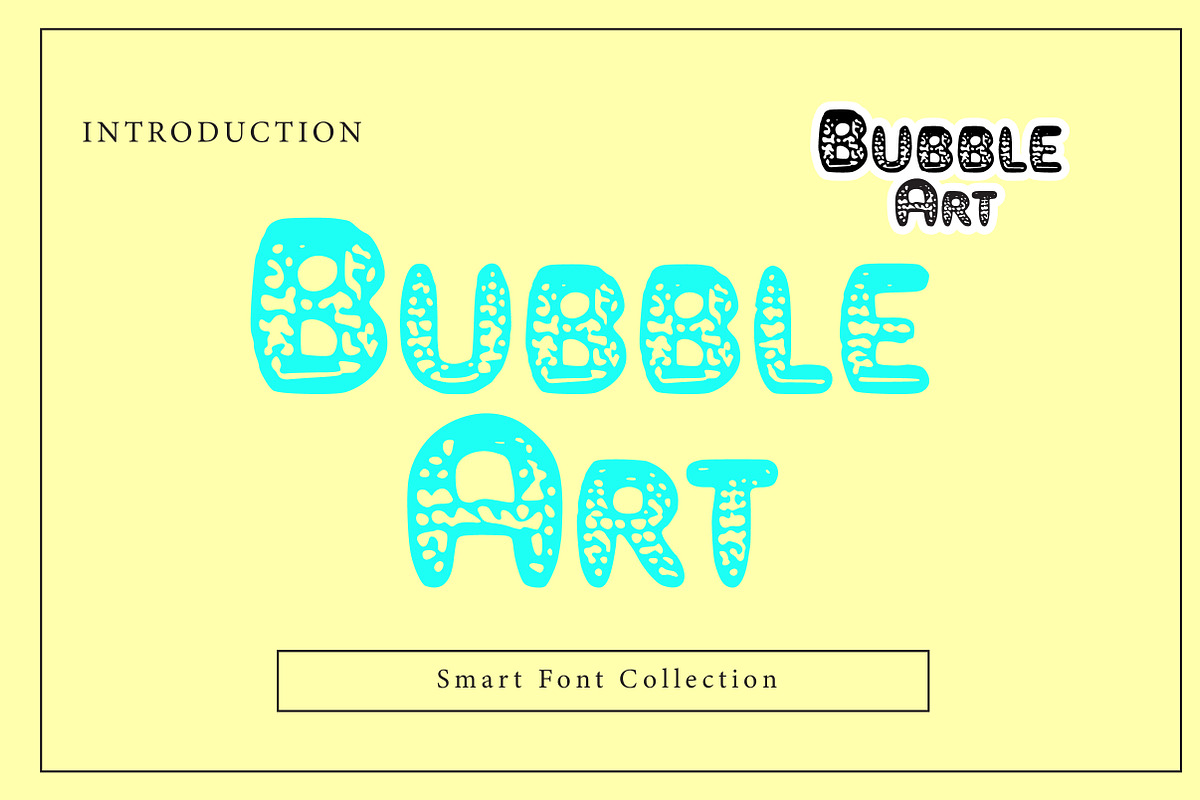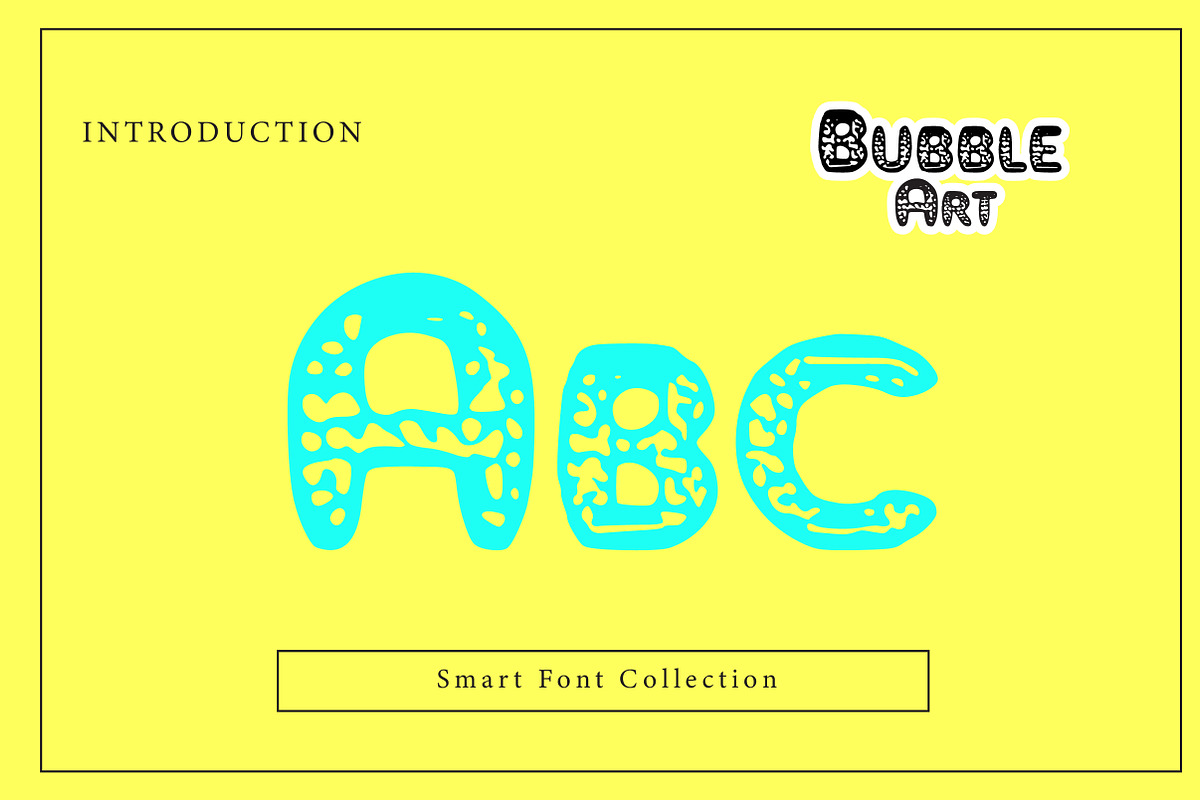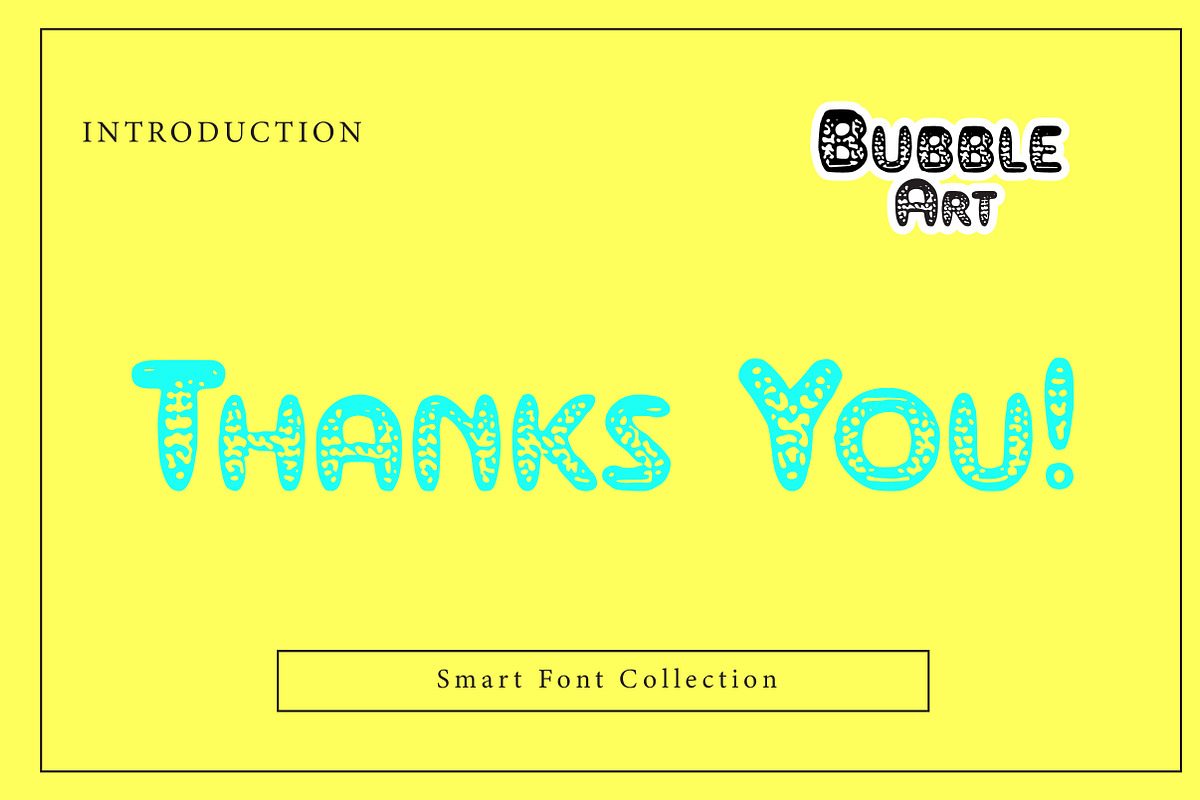
Bubble Art
Bubble Art is a playful and whimsical font featuring rounded, bubbly letterforms that give a fun and cheerful vibe. Perfect for kids’ designs, party invitations, cartoons, logos, and creative projects, it adds a lively, friendly, and energetic touch to any design.